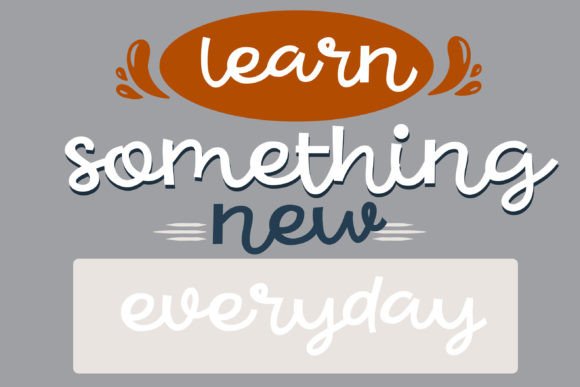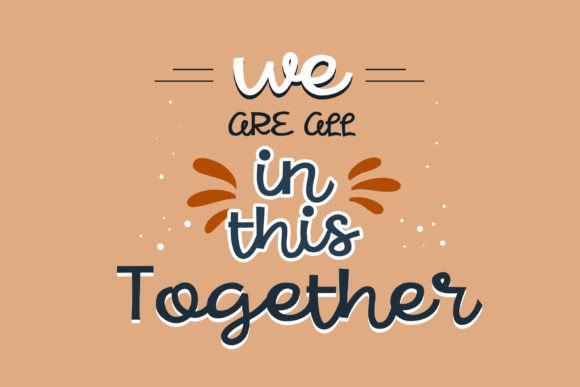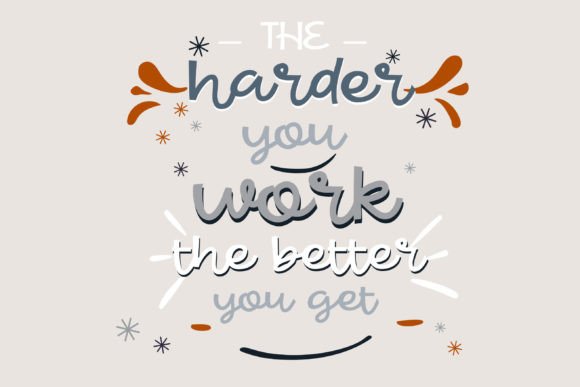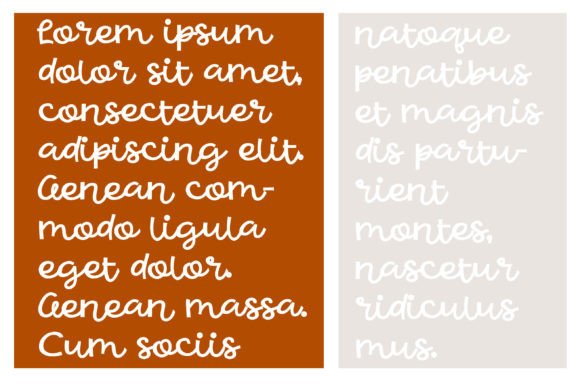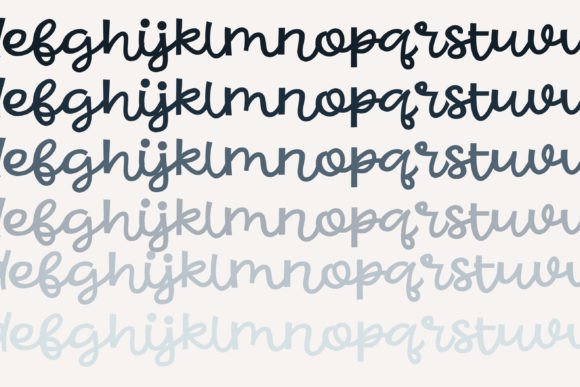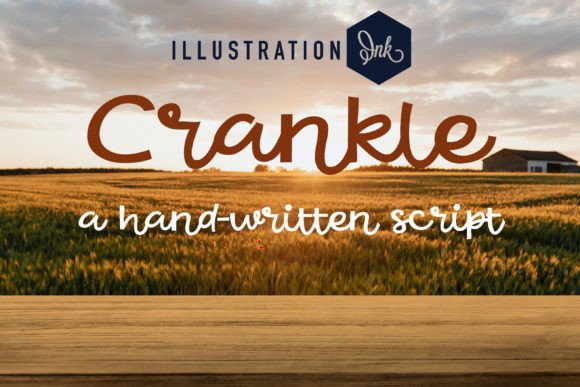
Discover the Charm of Crankle Font: Elevate Your Designs with this Versatile Hand-Written Cursive Script
In the world of typography, fonts play a crucial role in conveying the tone and personality of a design. For designers and crafters looking to add a touch of elegance and sophistication to their creations, the Crankle Font is an excellent choice. This hand-written cursive script boasts a unique blend of print-like uppercase letters and flowing cursive strokes, making it an incredibly versatile asset for any font library.
The Unique Characteristics of Crankle Font
One of the standout features of Crankle Font is its distinctive print-like uppercase letters. Unlike traditional cursive scripts that often feature elaborate and ornate capitals, Crankle Font’s uppercase letters are remarkably clean and modern, with a subtle hint of hand-written charm. This characteristic makes it an excellent choice for designers who want to create a bold statement without overpowering the rest of the design.
On the other hand, the lowercase letters of Crankle Font are a beautiful representation of hand-written cursive script. The flowing strokes and subtle connections between letters create a sense of movement and fluidity, adding a touch of warmth and personality to any design. Whether you’re working on a logo, branding materials, or social media graphics, Crankle Font’s cursive script is sure to captivate your audience.
The Benefits of Using Crankle Font in Your Designs
So, why should you consider adding Crankle Font to your font library? Here are just a few benefits of using this versatile hand-written cursive script:
- Enhances creativity: Crankle Font’s unique blend of print-like uppercase letters and cursive script offers endless possibilities for creative expression. Whether you’re designing a logo, brochure, or social media graphic, this font is sure to inspire your next project.
- Adds elegance and sophistication: The clean lines and flowing strokes of Crankle Font make it an excellent choice for designs that require a touch of elegance and refinement. From wedding invitations to luxury branding materials, this font is sure to impress.
- Versatile and adaptable: Crankle Font’s versatility is one of its most significant advantages. Use it for headlines, body text, or even quotes – this font adapts seamlessly to any design style or format.
Tips for Using Crankle Font Effectively
To get the most out of Crankle Font, here are a few tips to keep in mind:
- Pair it with contrasting fonts: Combine Crankle Font with bold sans-serif fonts or elegant serif fonts to create a striking contrast that adds depth and interest to your design.
- Experiment with colors and textures: Crankle Font looks stunning in a range of colors and textures. Try pairing it with subtle gradients, rich patterns, or metallic finishes to add an extra layer of visual interest.
- Use it to create visual hierarchy: Take advantage of Crankle Font’s print-like uppercase letters and cursive script to create a clear visual hierarchy in your design. Use larger font sizes for headings and smaller sizes for body text to create a clear structure.
In conclusion, Crankle Font is an exceptional hand-written cursive script that offers a unique blend of print-like uppercase letters and flowing cursive strokes. Its versatility, elegance, and adaptability make it an excellent addition to any font library, and its potential to enhance any creation is undeniable. Whether you’re a designer, crafter, or simply a typography enthusiast, Crankle Font is sure to captivate and inspire. So why not give it a try and discover the charm of Crankle Font for yourself?